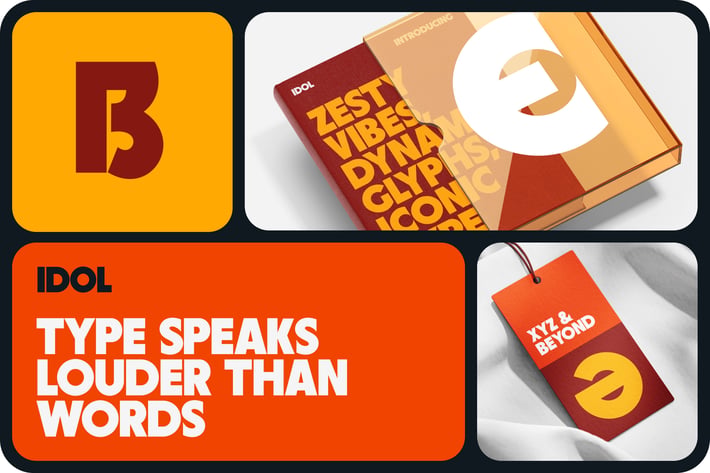
IDOL Modern Font
This modern and versatile typeface is designed for bold, impactful branding. With its urban aesthetic, contemporary edge, and strong geometric structure, it seamlessly adapts to various industries, from sports brands and fintech to corporate and tech sectors. The clean yet expressive letterforms ensure high readability and striking presence in both digital and print applications. Whether it's for a high-energy campaign, a sleek corporate identity, or dynamic editorial design, this font delivers a powerful visual statement.
Regular and Italic
Standard Glyphs
Numerical and Functional
Alternate and Ligature